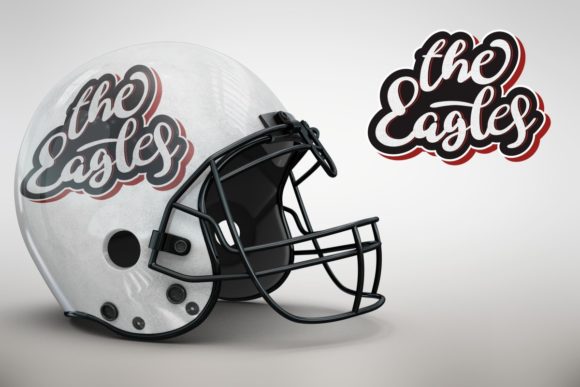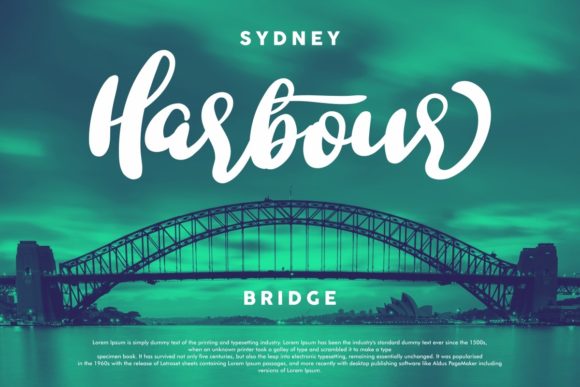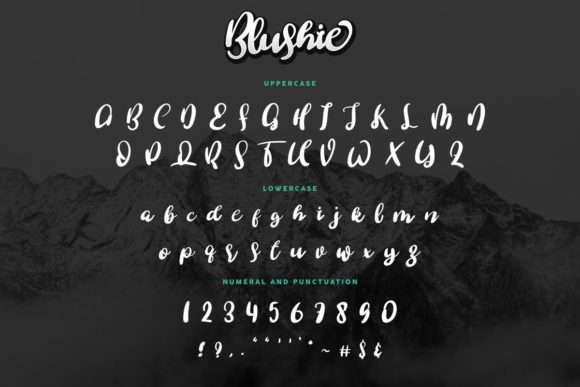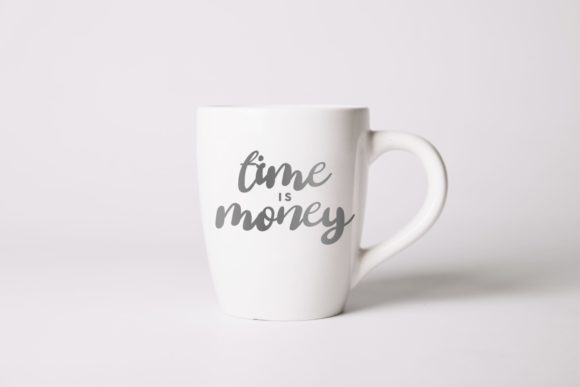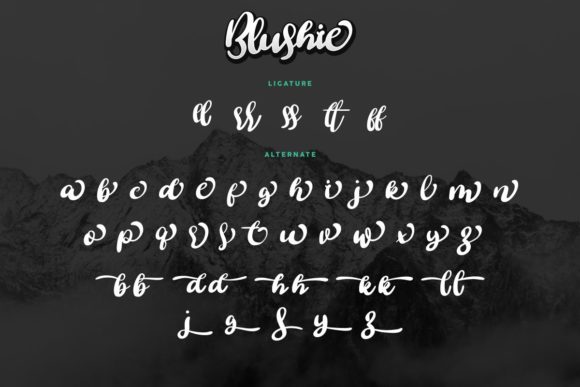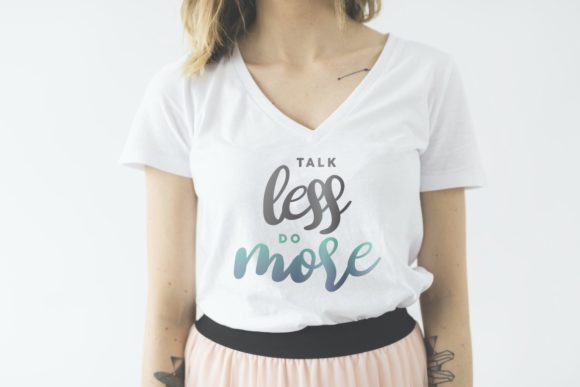
The Perfect Touch of Whimsy: Discover the Blushie Font
As you sit at your desk, surrounded by scraps of paper, paint swatches, and glittering embellishments, you’re on the hunt for the perfect font to bring your design to life. You want something that exudes romance, elegance, and a touch of playfulness – something that will make your clients swoon and your audience smile. That’s where the Blushie Font comes in – a sweet and delicate handwritten font that’s perfect for adding a personalized touch to your wedding invitations, cards, and other designs.
With its dainty and joyful feel, the Blushie Font is a valuable addition to any designer’s toolkit. Its PUA encoding allows for easy access to all the glyphs and swashes, making it a breeze to customize and add that extra special something to your designs. Whether you’re working on a wedding project or just want to add a touch of whimsy to your branding, the Blushie Font is sure to be a hit.
Blushie Font Key Features
- Font Family: Blushie Font is a unique, hand-drawn script font designed for creative and elegant typography.
- Unique Characteristics: Features a delicate, hand-painted aesthetic with subtle texture and imperfections, adding a touch of personality to any design.
Designer Review: Blushie Font
As a designer, I was excited to dive into the Blushie Font and see what it had to offer. Here’s my honest review.
Unique Character: Blushie Font has a distinctive character that sets it apart from other fonts. Its playful and cursive feel makes it perfect for designs that require a touch of whimsy.
Legibility: Despite its cursive nature, Blushie Font is surprisingly legible, even at smaller font sizes. This makes it a great choice for body text or headlines.
Availability: Blushie Font may not be as widely available as other fonts, which could limit its use in certain projects or applications.
Font Variations: While Blushie Font has a unique character, it may not be suitable for designs that require a wide range of font variations (e.g., bold, italic, condensed).
Overall, I think Blushie Font is a great choice for designers looking to add a touch of personality to their designs. While it may have some limitations, its unique character and legibility make it a worthwhile addition to any font collection.
Tips: Use Blushie Font for social media graphics, quotes, and other text-heavy designs to add a touch of elegance and sophistication.
Tips: Use Blushie Font for creating custom logos, invitations, and other designs where a unique and playful font is needed.
Tips: Use Blushie Font for creating presentations, reports, and other documents where a friendly and approachable tone is desired.
Blushie Font is suitable for a variety of designs, including:
– Quotes and captions
– Logos and branding
– Invitations and event materials
– Presentations and reports
Alternatives to Blushie Font
Great Vibes is a modern, elegant script font that is perfect for adding a touch of sophistication to your designs. It’s ideal for use in titles, headings, and quotes, especially in fashion, beauty, and lifestyle brands.
Compared to Blushie Font, Great Vibes has a more refined and polished look, making it suitable for a wider range of applications.
Literata
Literata is a beautiful, high-end script font that is perfect for luxury brands, high-end fashion, and premium products. It’s ideal for use in titles, headings, and packaging design.
Compared to Blushie Font, Literata has a more luxurious and elegant feel, making it suitable for high-end applications.
Montesaurus
Montesaurus is a unique, hand-drawn script font that is perfect for adding a touch of personality to your designs. It’s ideal for use in titles, headings, and social media graphics, especially in creative and artistic brands.